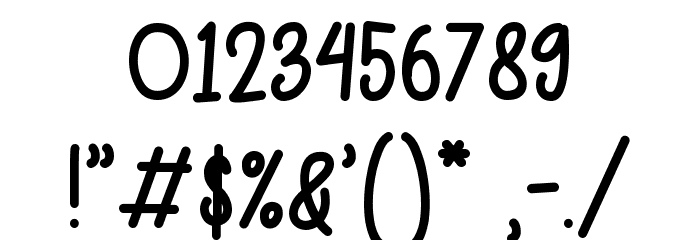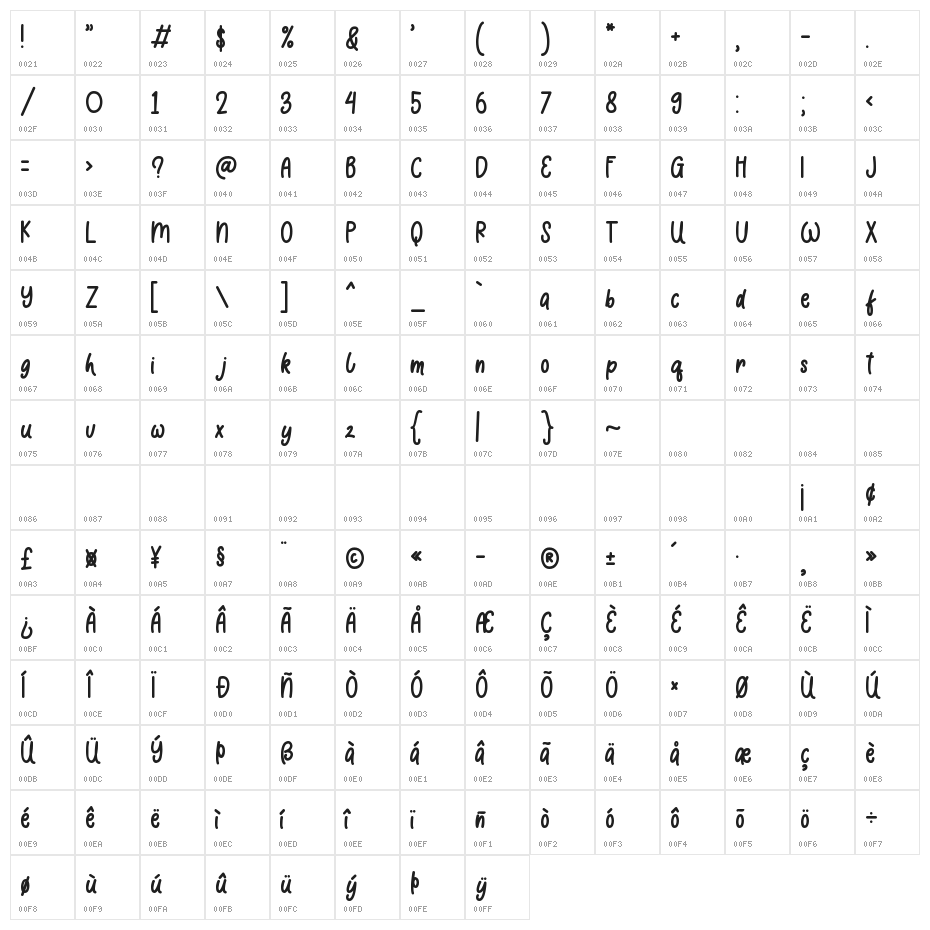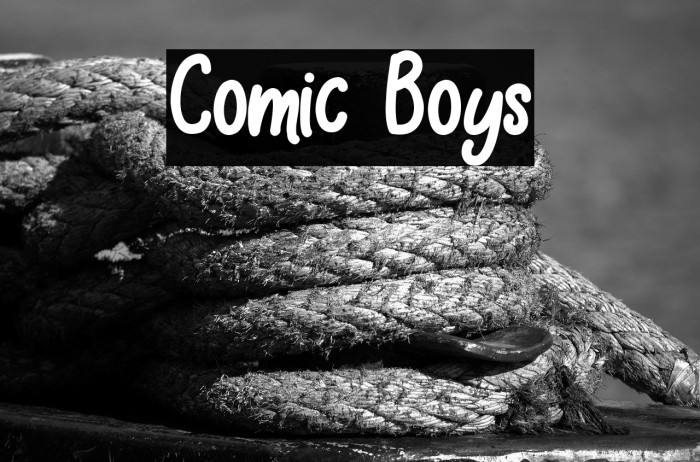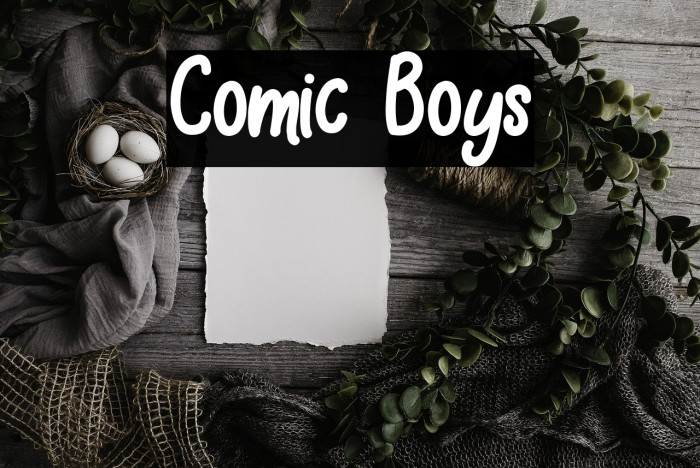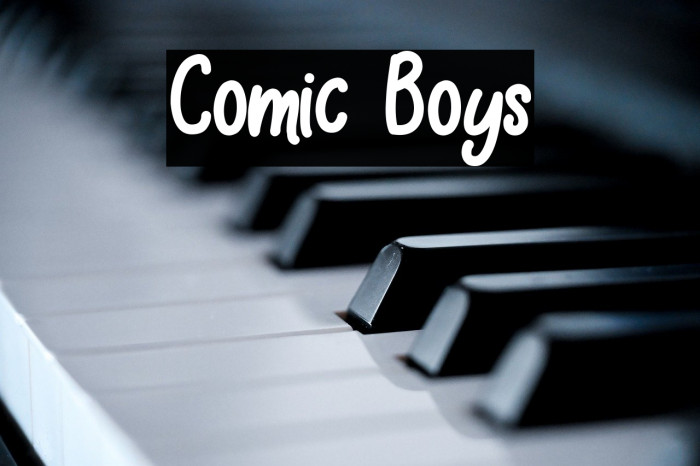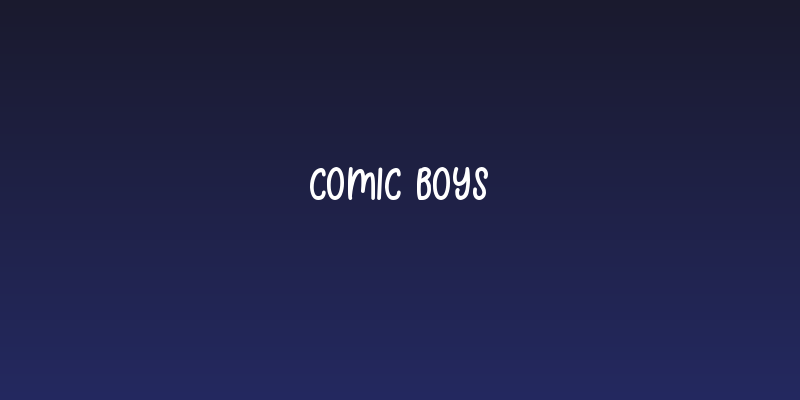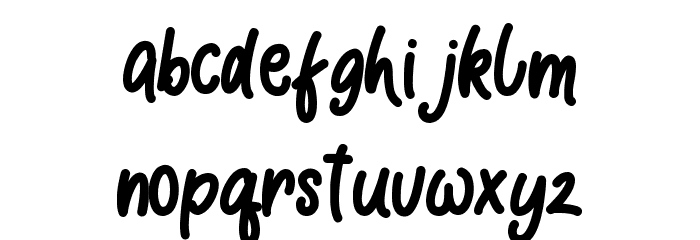
Comic Boys Font
Comic Boys Description
This playful and informal font features rounded, smooth strokes that give it a friendly and approachable appearance. The letters are slightly irregular, mimicking a handwritten style that adds a personal touch. The uppercase and lowercase characters maintain a consistent flow, with a slight slant that enhances its casual vibe. The numerals and special characters are designed to match the overall style, ensuring uniformity across all text elements. This font is ideal for projects that require a lighthearted and whimsical feel.
| Use Case | Headlines, Informal text, Branding |
| Proposed Projects | Ideal for children's books, comic strips, playful branding, and casual invitations. |